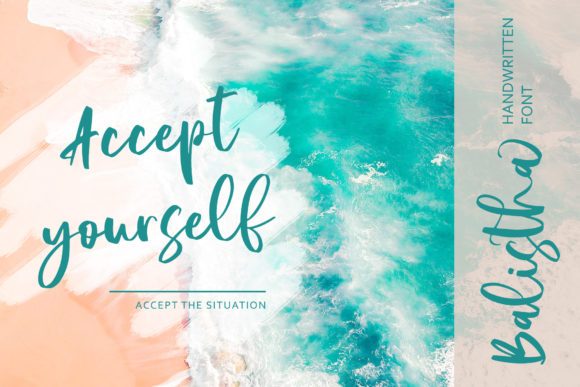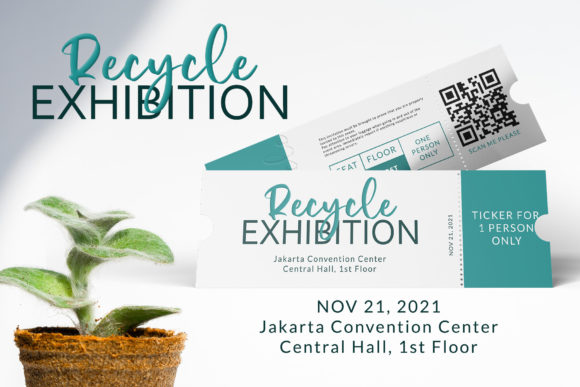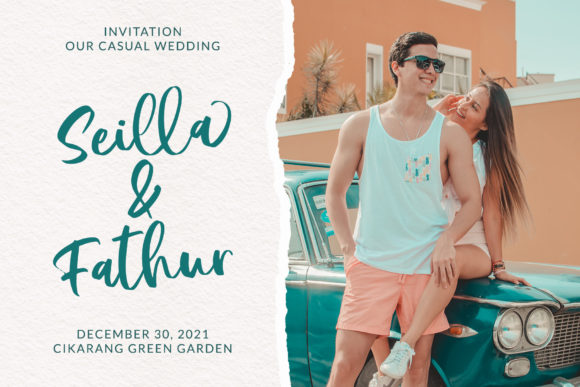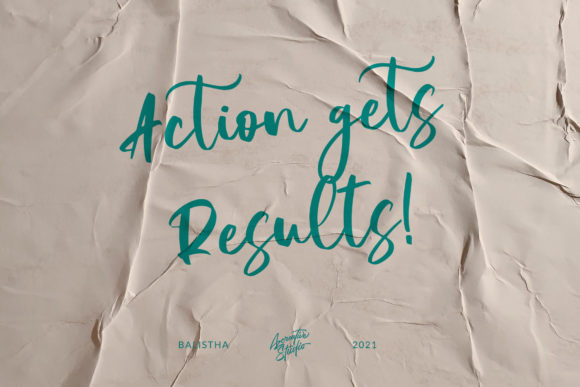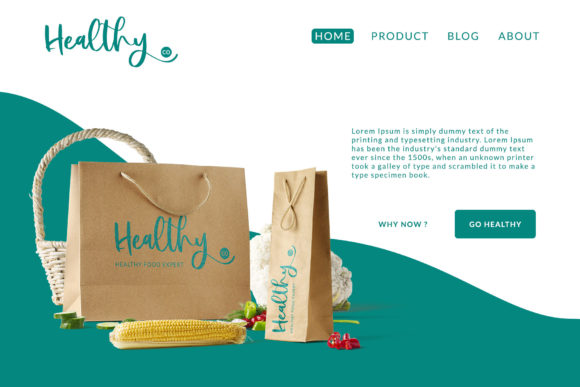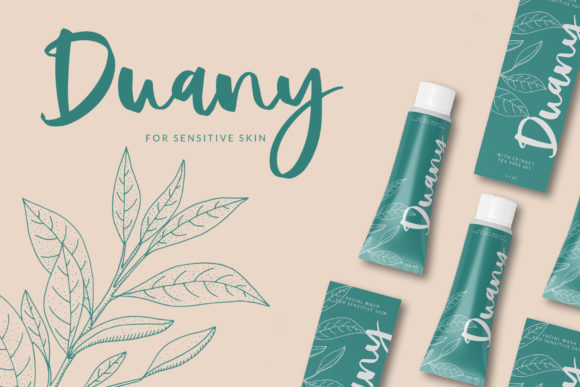
Balistha Font
About Balistha Font
Balistha is a sweet, whimsical, flowing and thin script font. Featuring characters that dance along the baseline, this font will add a luxury spark to any design project that you wish to create!